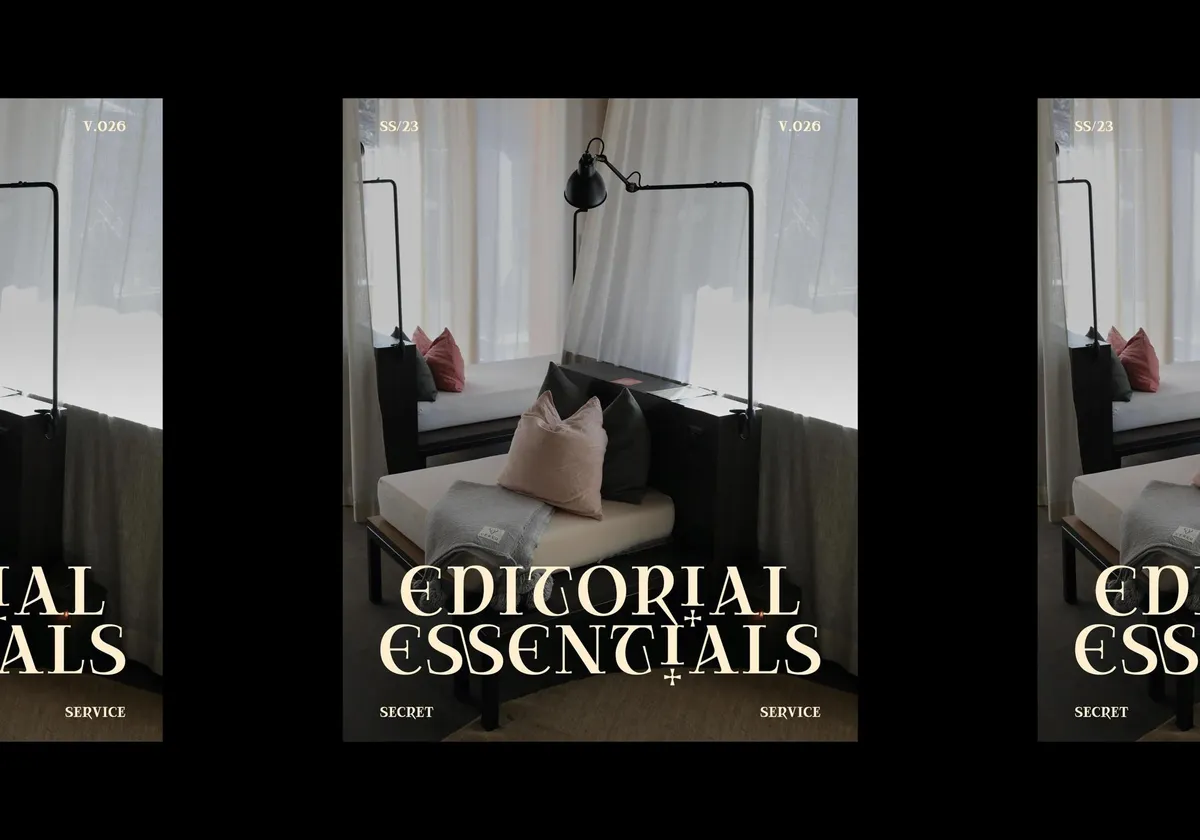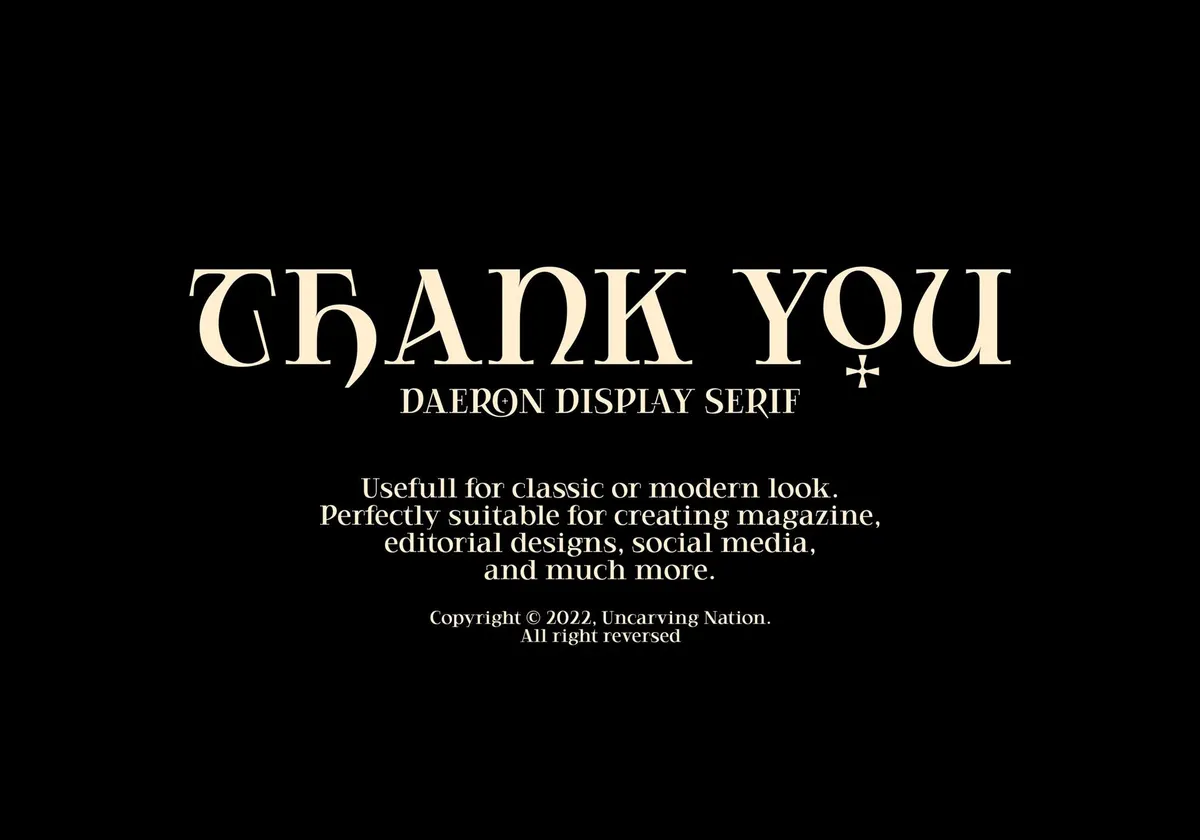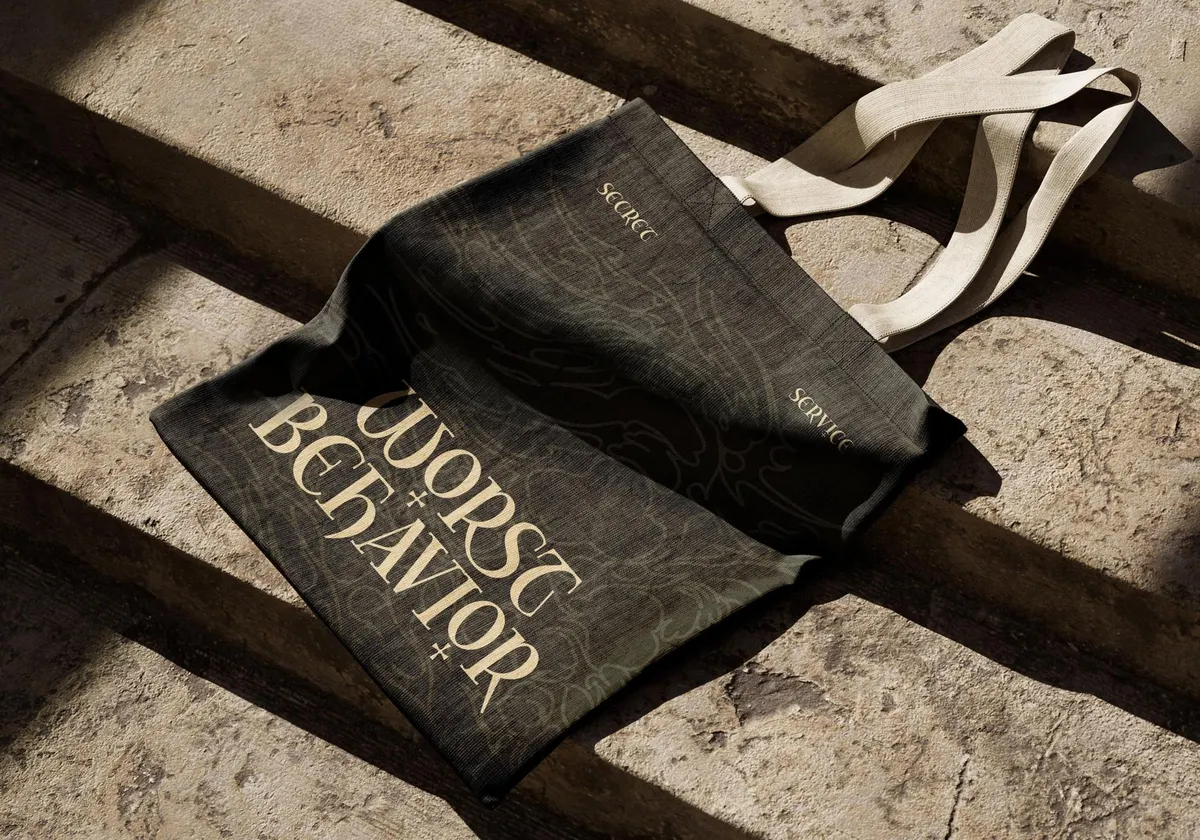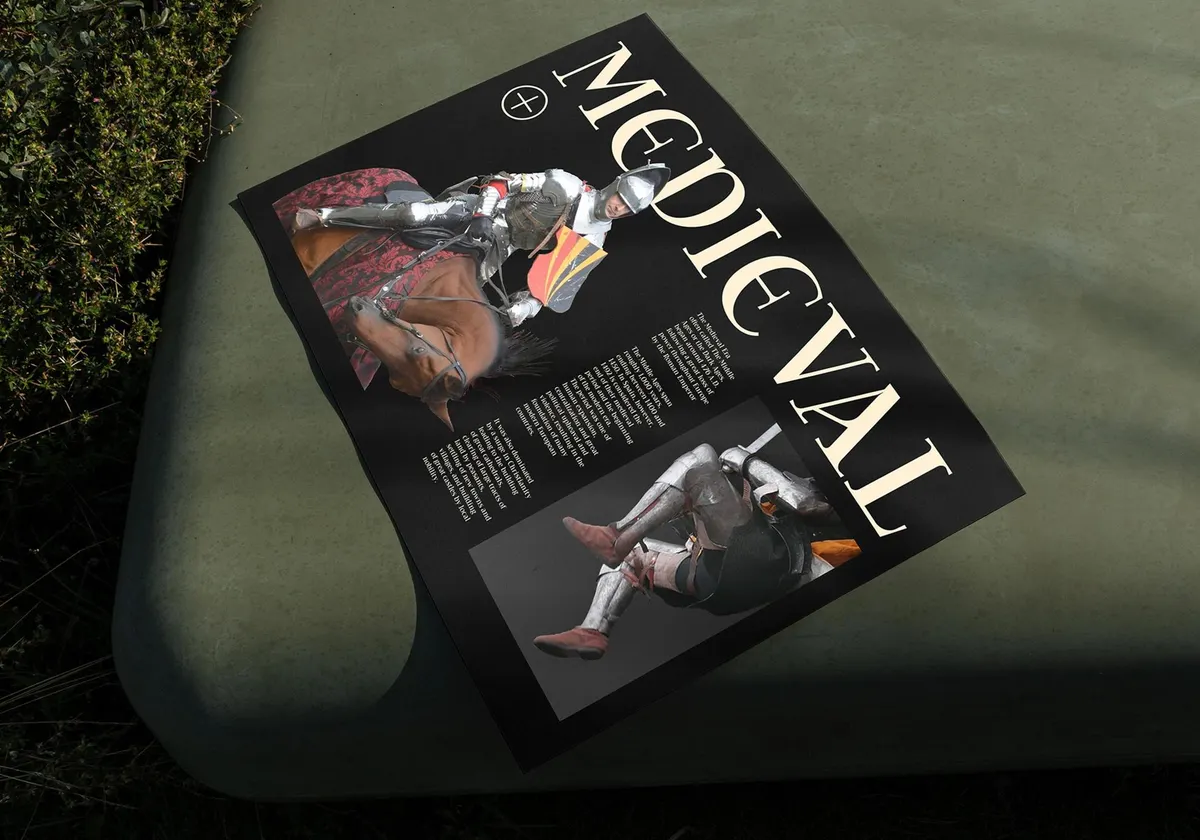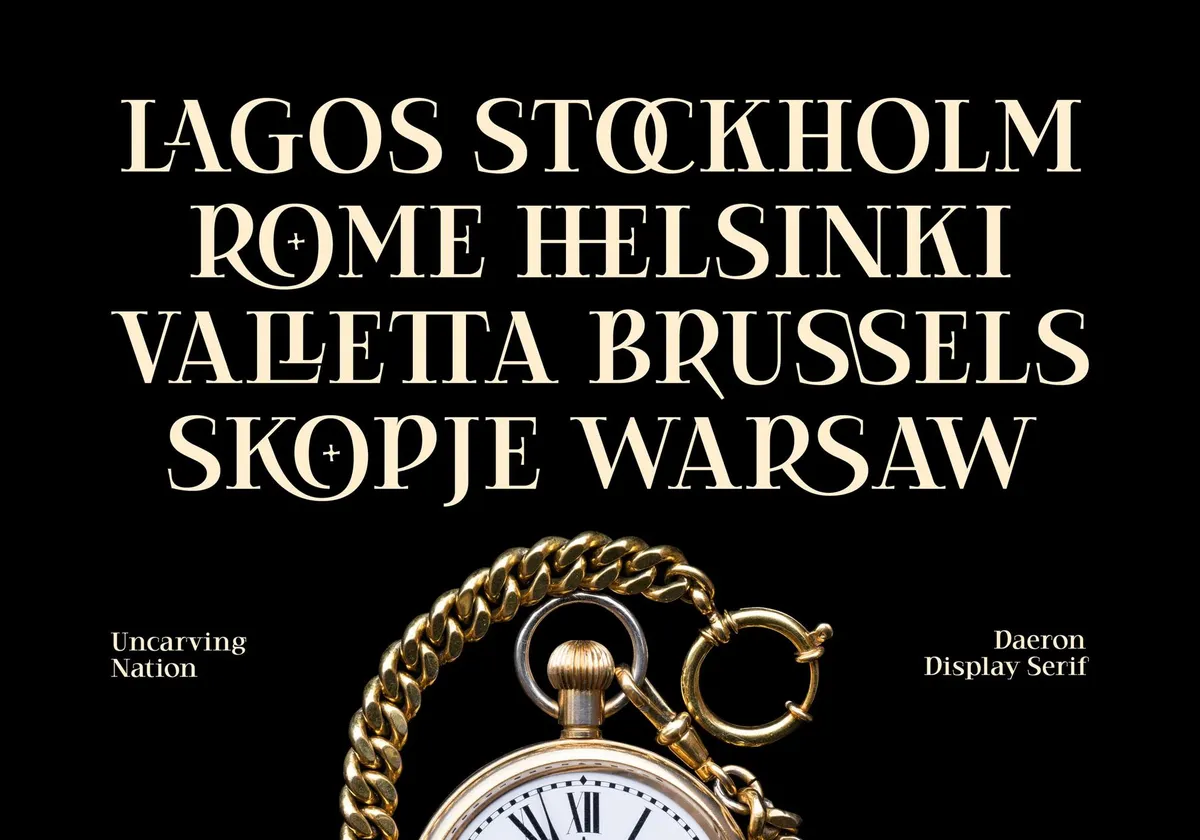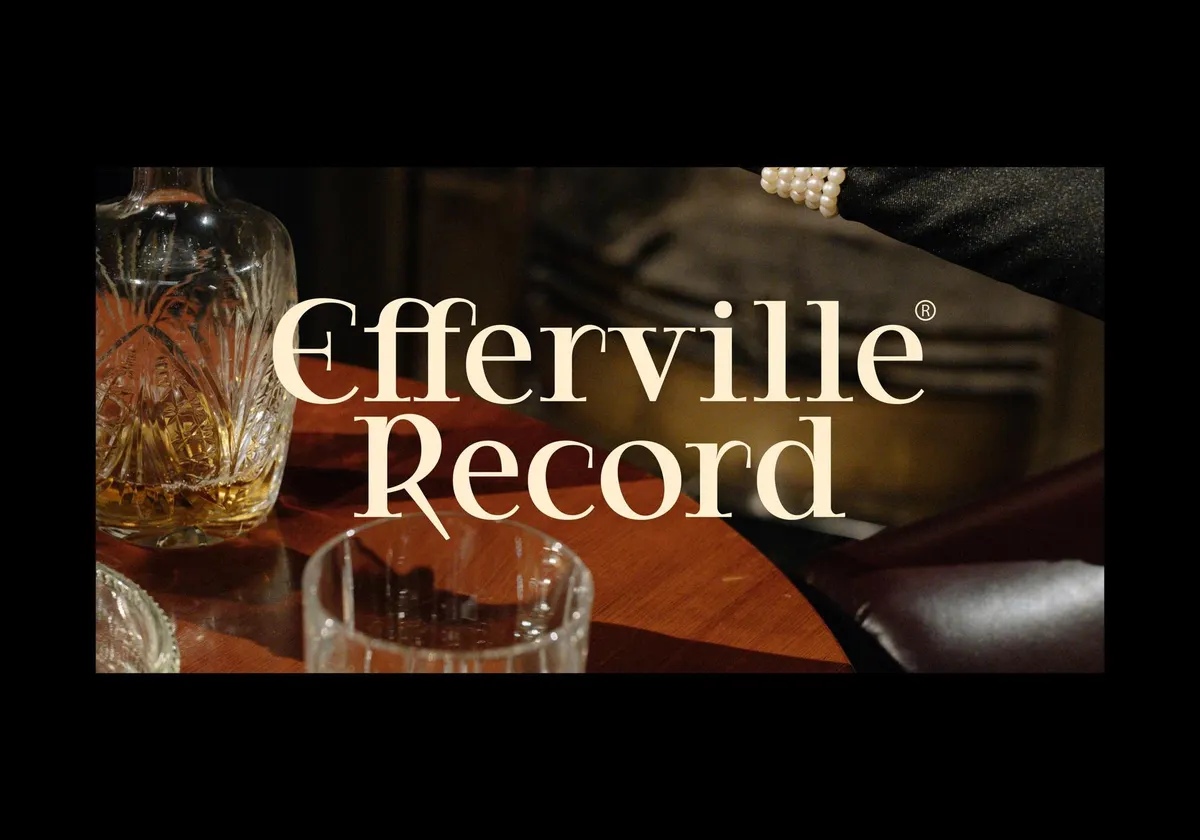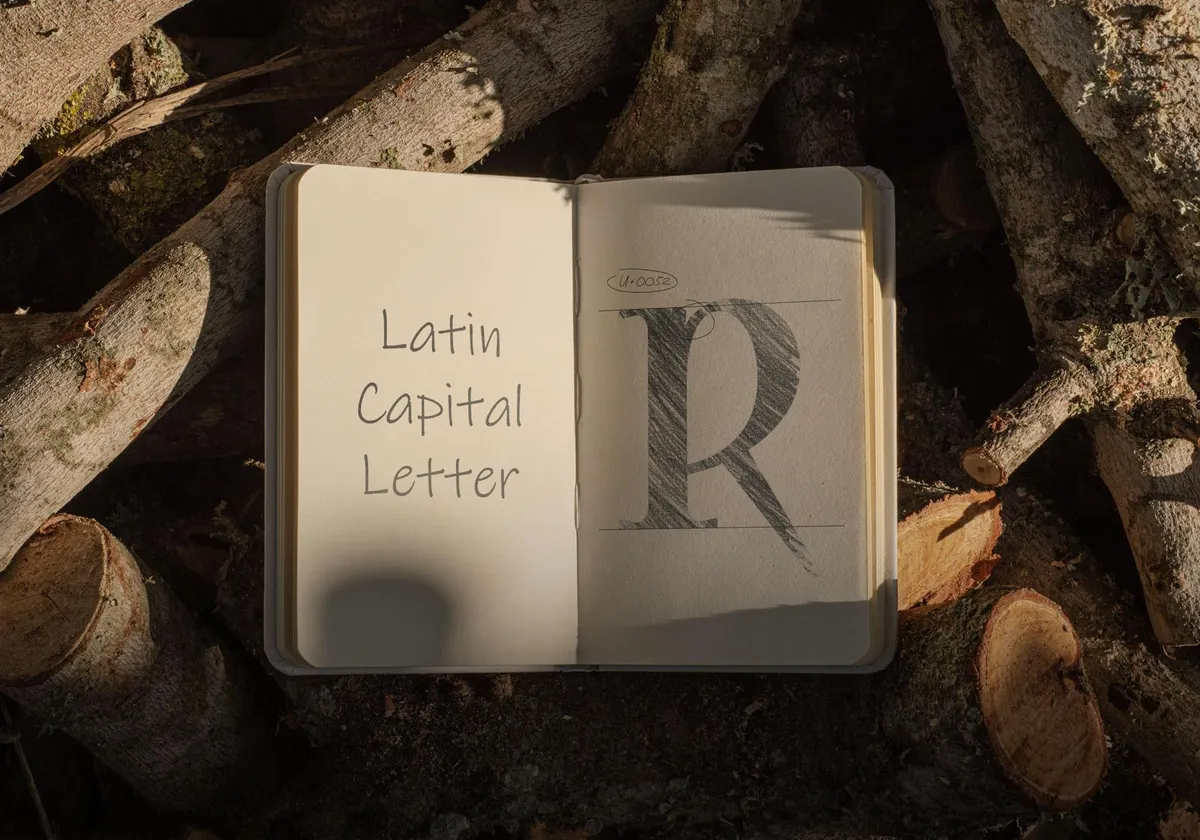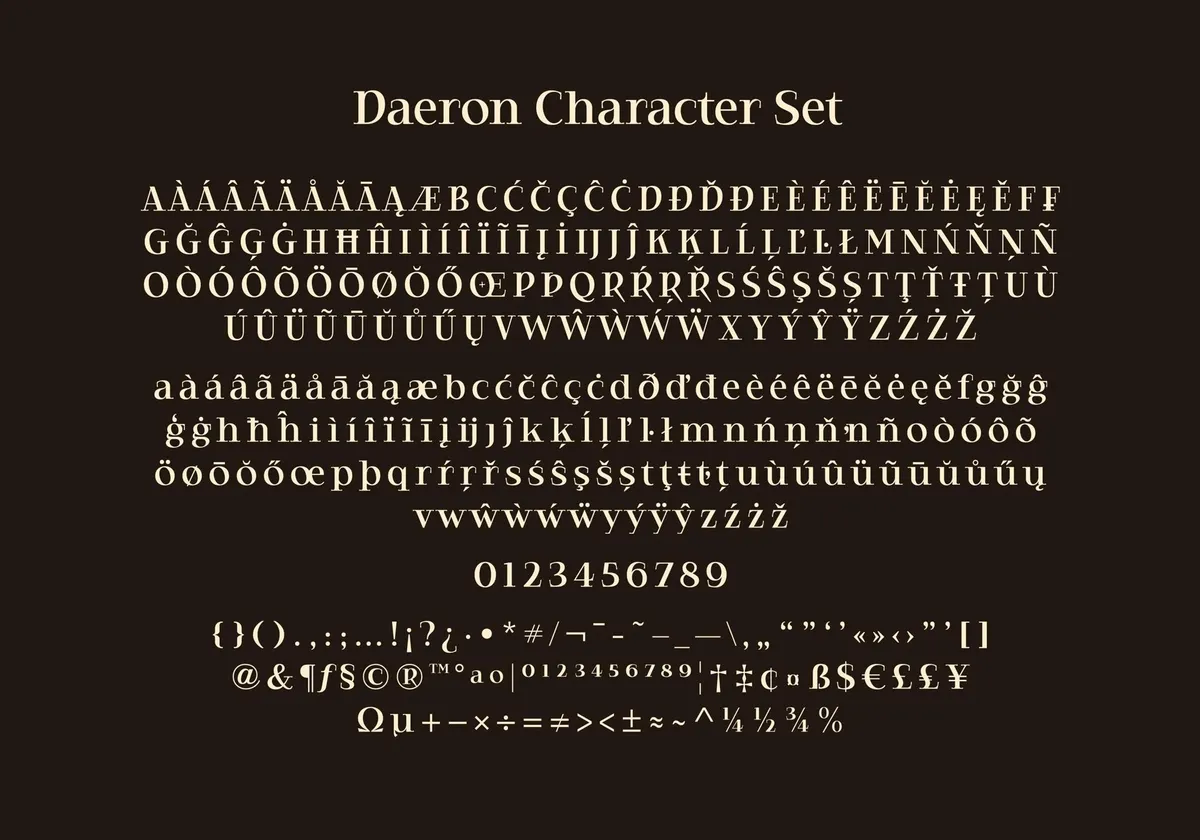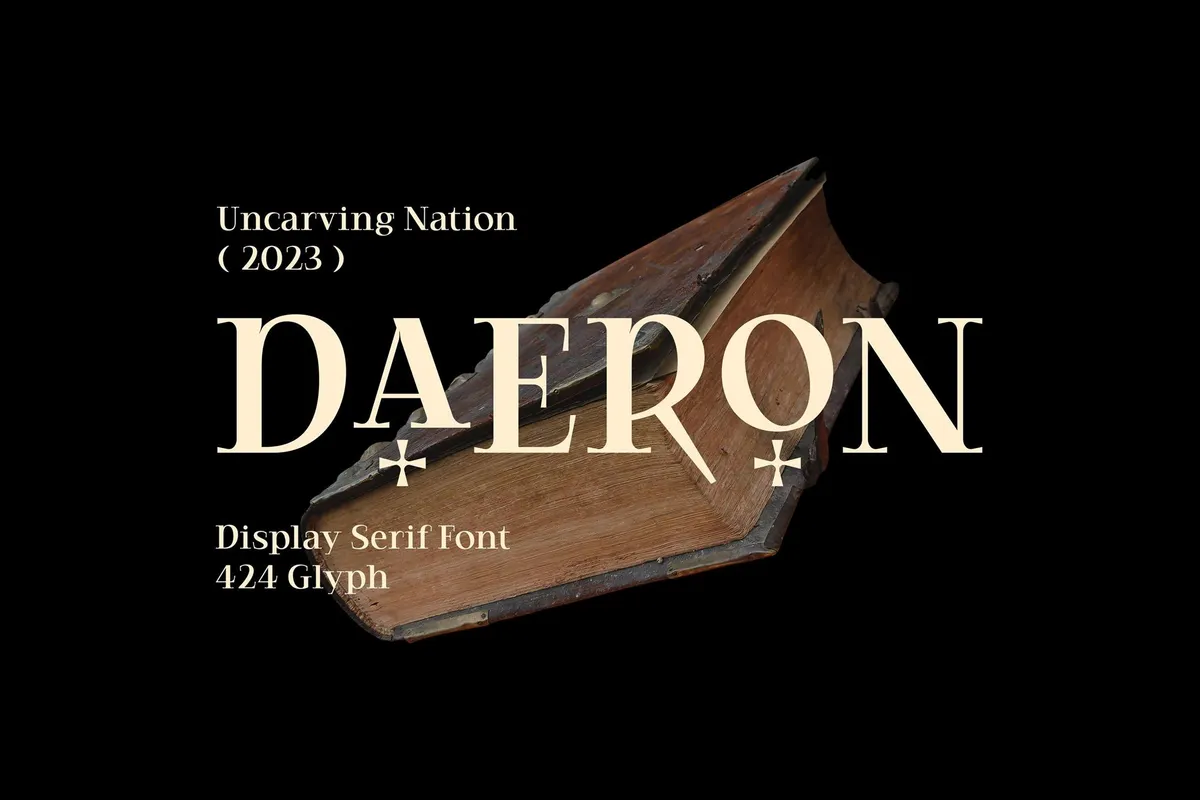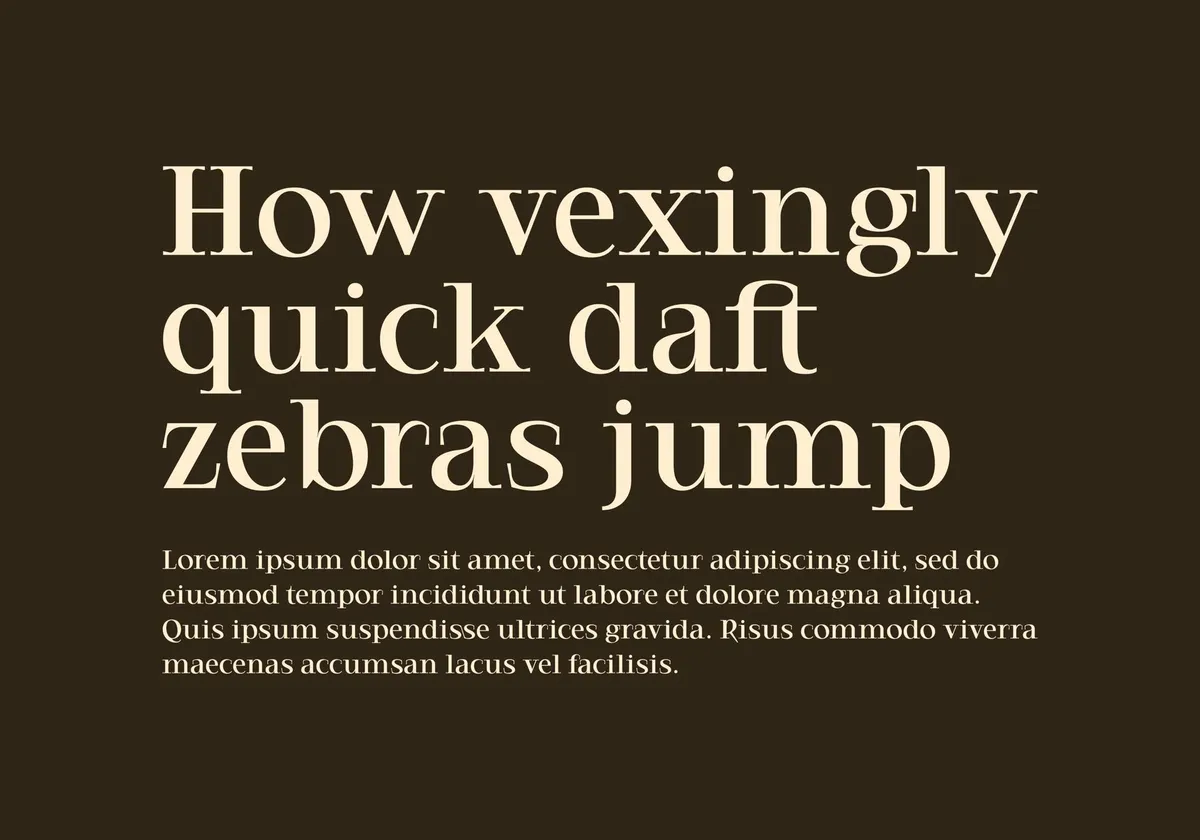
Daeron Display Serif
If medieval tournaments were announced on the front page, they would be put on the cover of a glossy magazine with huge titles written in Daeron display font. And blacksmiths etched it on the armors, too.
Daeron is a bit of a gothic serif with a touch of modernity that undeniably deserves to be placed on display. Let's study its anatomy: smooth letter arches paired with crosses expose the ancient inspiration in every glyph. The presence of ligatures, alternates, numerals, and punctuation only increases the flair of this untypically gothic script. Daeron is as good as a troubadour's ballad, so let it travel the world on posters, book covers, prints, and packaging.